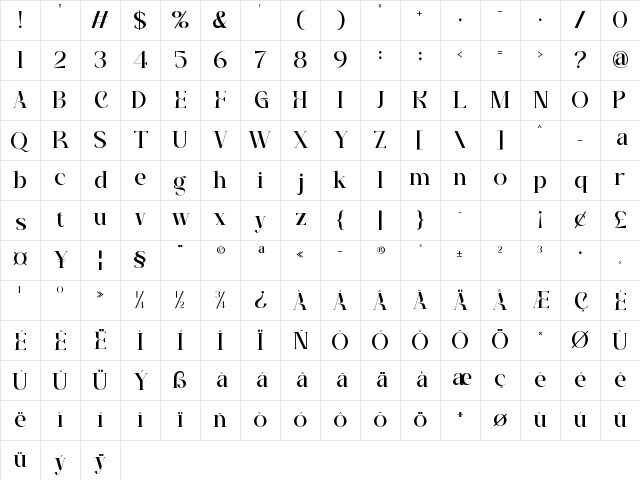
Elgian Regular Free Font
Elgian Regular
Designer: SlideShoot 2022
Design Context for Elgian
Elgian is a composed and adaptable typeface that performs quietly and consistently across a wide range of design contexts.